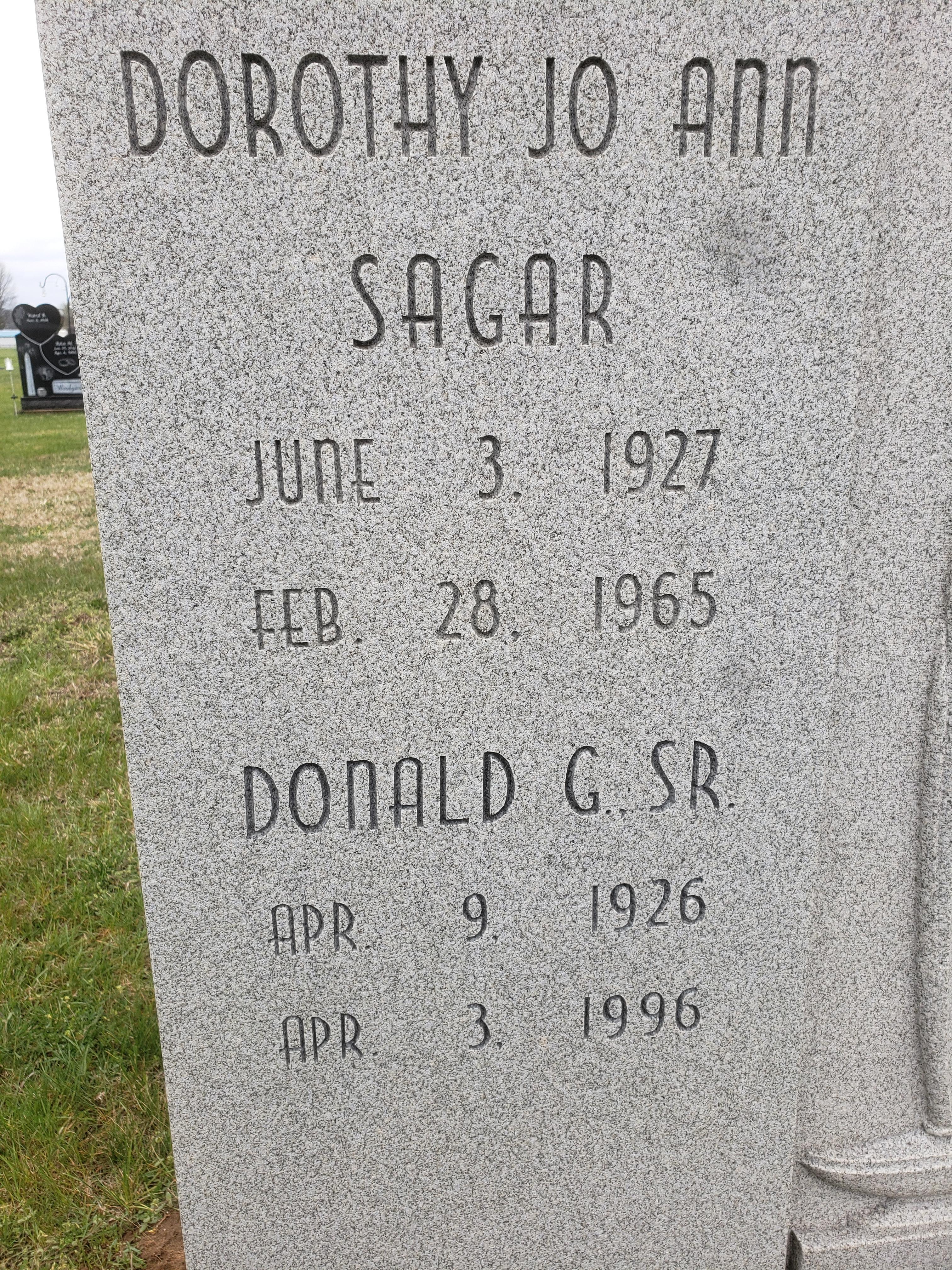
Font Unknown For Dorothy
Font Unknown
Hello, this is a font called Elbreco. There are currently no versions of it available for sale, or in any software. The history is a bit murky, but it is believed to have been designed by an AICA member, and dates back to at least 1958. It was never included in the Spacerite catalog of alphabets, but it was made into a custom metal Spacerite alphabet at some point and possibly made available only to AICA members.
It is very similar to another font called Westminster, which is slightly bolder and narrower, and some letters and numbers contain difference. AICA members have created digital versions of both fonts.